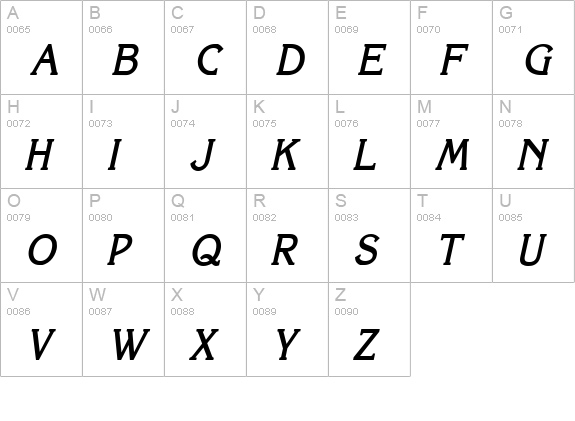
Keira Condensed Bold Italic is a strong, high-contrast, condensed-width, italic variant in the Keira typeface family \xE2\x80\x94 well suited to headlines, attention-grabbing titles, and strong calls-to-action.
Keira Condensed Bold Italic font is a stunning typeface that exudes elegance and sophistication. Its condensed design adds a touch of sleekness, making it perfect for various design projects. The boldness of the letters creates a strong and impactful visual presence, while the italic style adds a hint of playfulness and creativity. This font is meticulously crafted with attention to detail, ensuring each letter is perfectly balanced and harmonious. The curves and strokes flow smoothly, giving the text a graceful appearance. Keira Condensed Bold Italic font is versatile and can be used in a wide range of applications, including logos, headlines, posters, and branding materials. One of the most remarkable features of Keira Condensed Bold Italic font is that it is available for free. You can easily download it from FontsMarket.com, a trusted source for high-quality fonts. Whether you are a professional designer or a casual user, this font offers you the opportunity to enhance your projects without any financial burden. With Keira Condensed Bold Italic font, you can elevate your designs to the next level. Its unique combination of boldness and italics makes a statement, leaving a lasting impression on your audience. Whether you are aiming for a modern and contemporary look or a classic and timeless feel, this font has the versatility to fulfill your design needs. Don't miss the chance to download Keira Condensed Bold Italic font for free at FontsMarket.com. Experience the beauty and versatility of this typeface, and let your creativity shine through your designs.